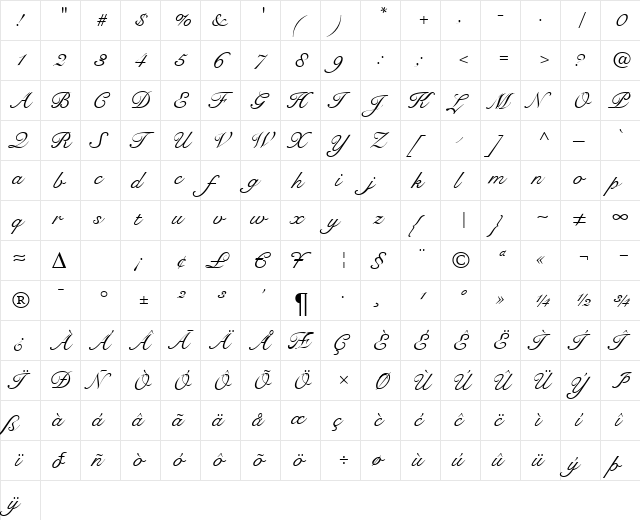
Script-R791 Regular Font Preview
Script-R791 Regular
Design Context for Script-R791 Typeface
Script-R791 flows with the natural rhythm of handwritten lettering, making it ideal for designs that call for warmth and personal expression.
Font Pairing: Combine Script-R791 with a simple geometric sans for maximum contrast — the tension between flowing curves and clean structure is a classic typographic pairing.
Pro Tip: Pair Script-R791 with a clean sans-serif for supporting text. The contrast between fluid script and geometric structure creates an elegant typographic hierarchy.